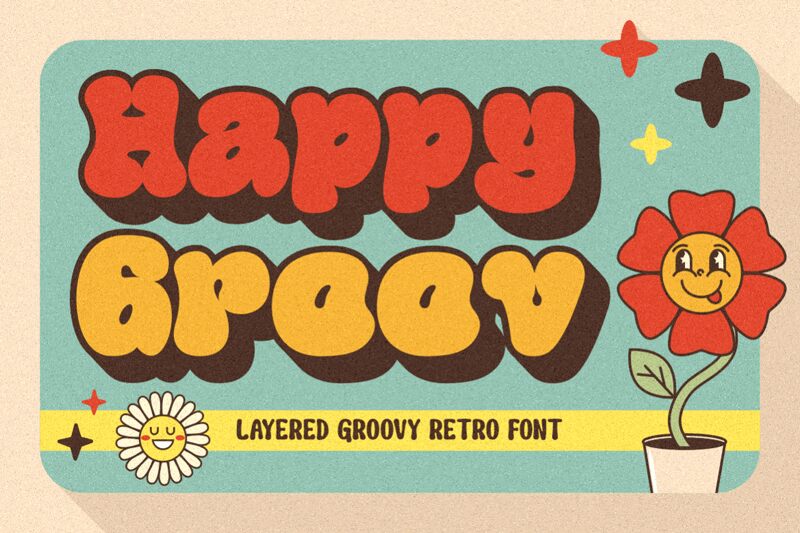
Happy Groov font family by PutraCetol Studio is a vibrant collection of six groovy fonts that exude a retro and cheerful vibe. With a design inspired by the playful styles of the 1970s, this font family brings a whimsical yet vintage appeal to your projects. The bold and playful atmosphere of the fonts is further enhanced by the layered appearance, making it perfect for those seeking to add a casual and colorful touch to their design.
Embrace the playful essence of Happy Groov in creating posters, headlines, logos, stationery, stickers, greeting cards, magazines, journals, and social media content. Also, make the best of it in product and apparel design, packaging, signage, and anything else you feel like.